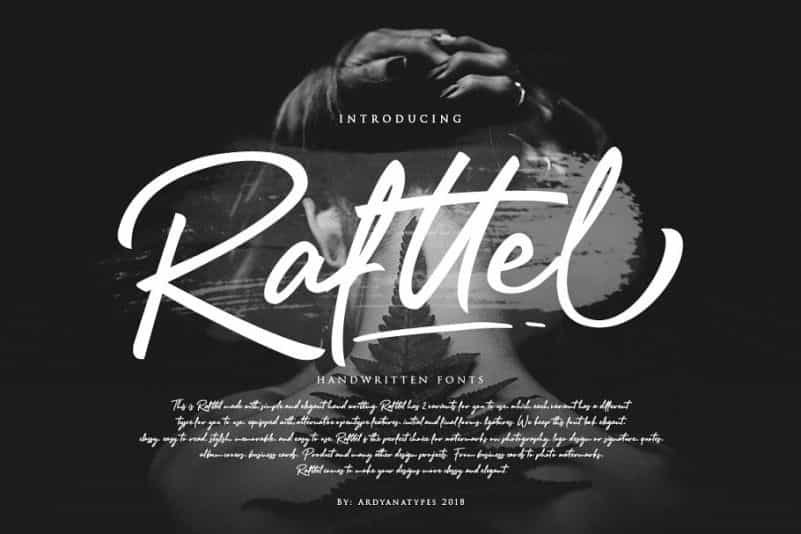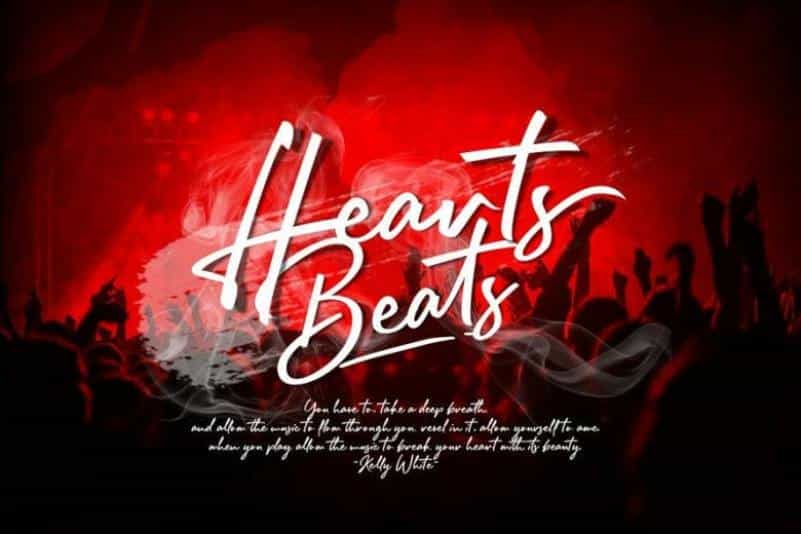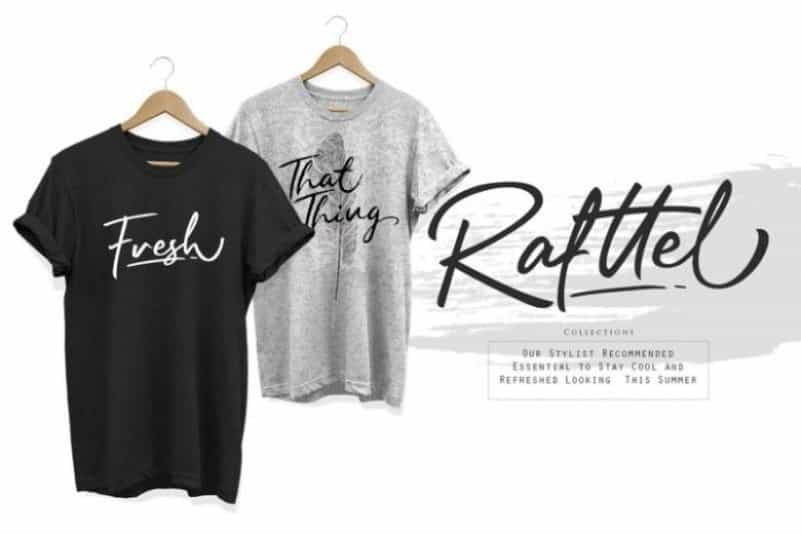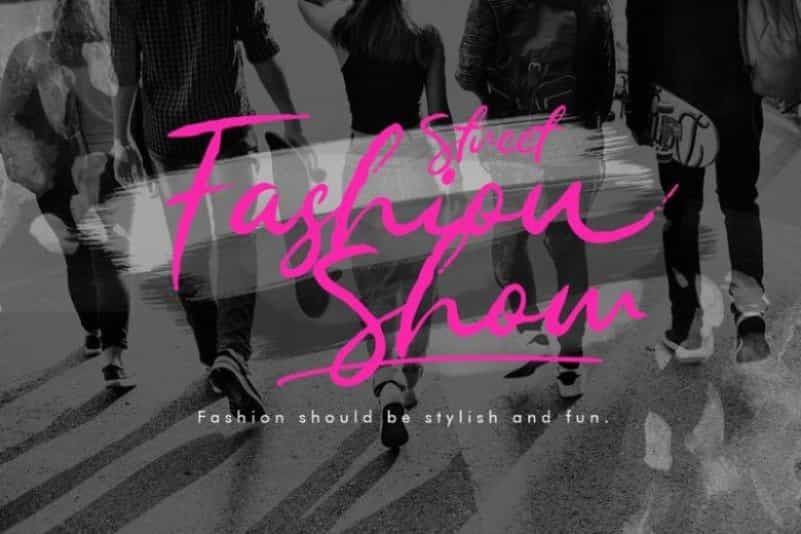
Introducing Rafftel Font. It is a product of the Ardyanatypes. Rafftel Script Font is made with simple and elegant handwritting, Rafttel font has 2 variants for you to use which each variant has a different type for you to use. It also equipped with alternative opentype features, initial and final forms, ligatures.